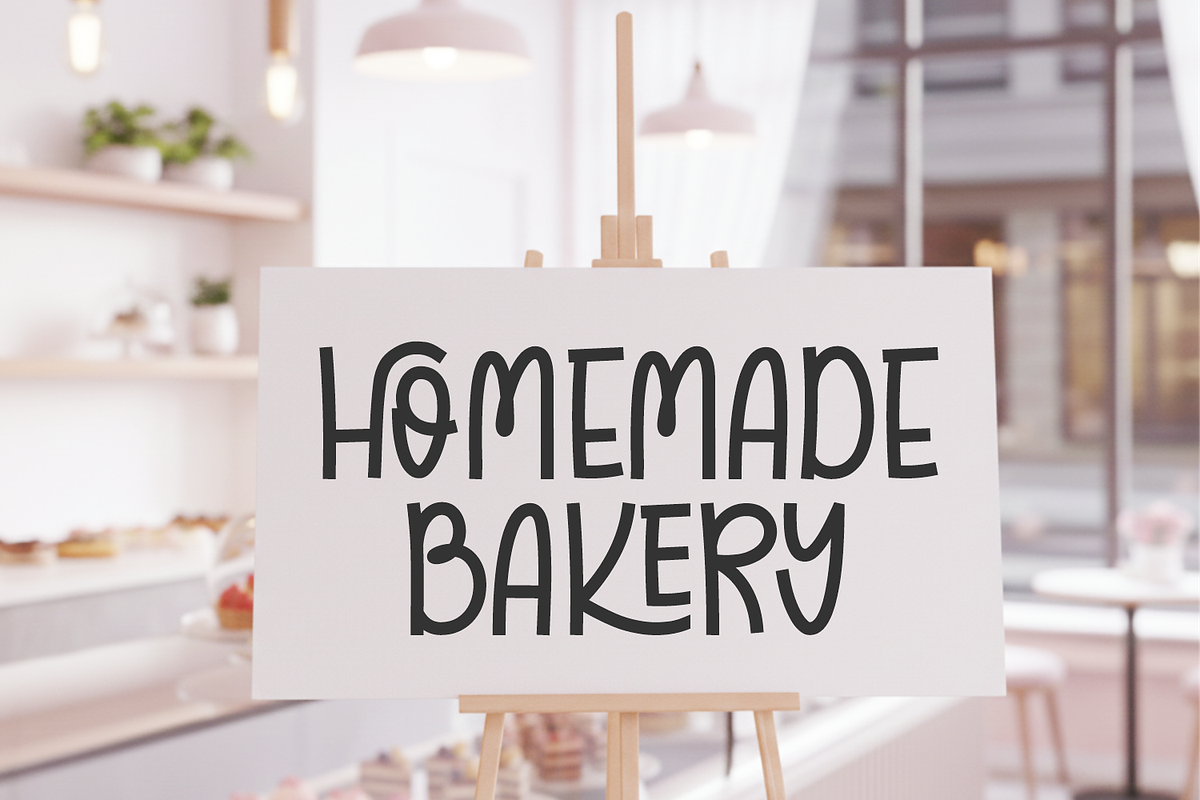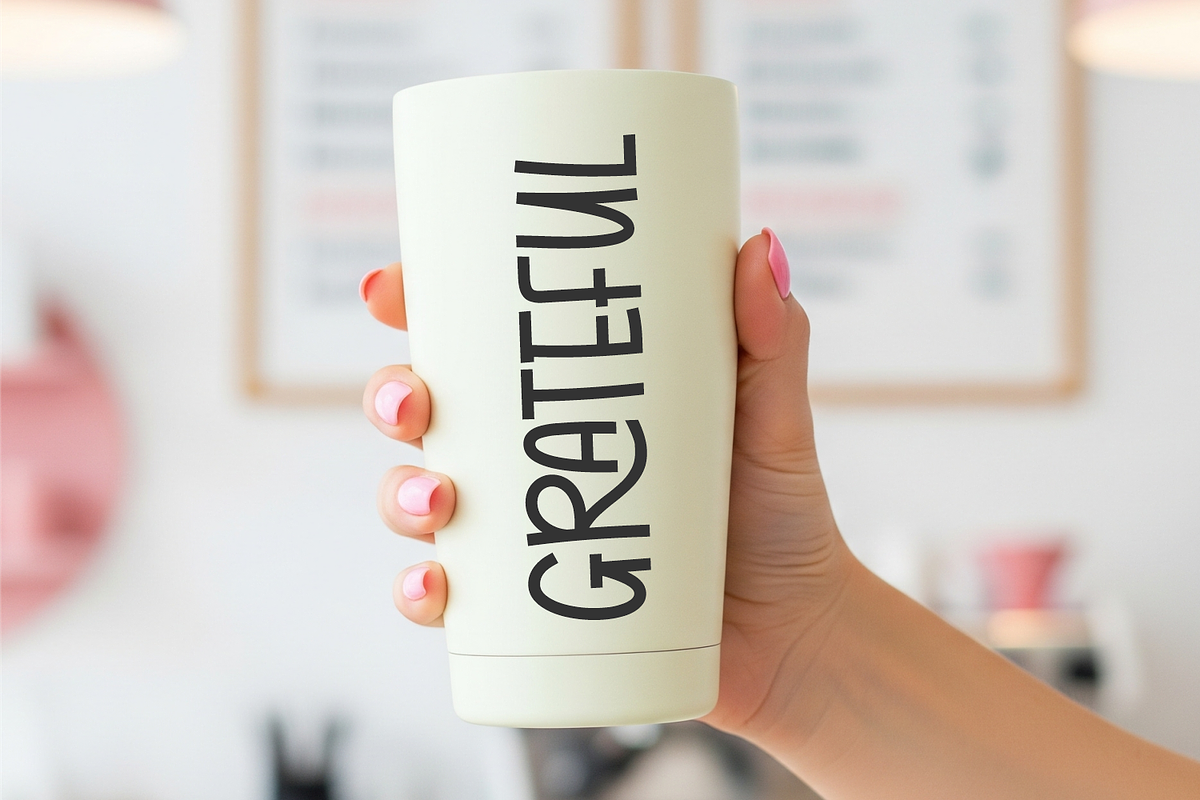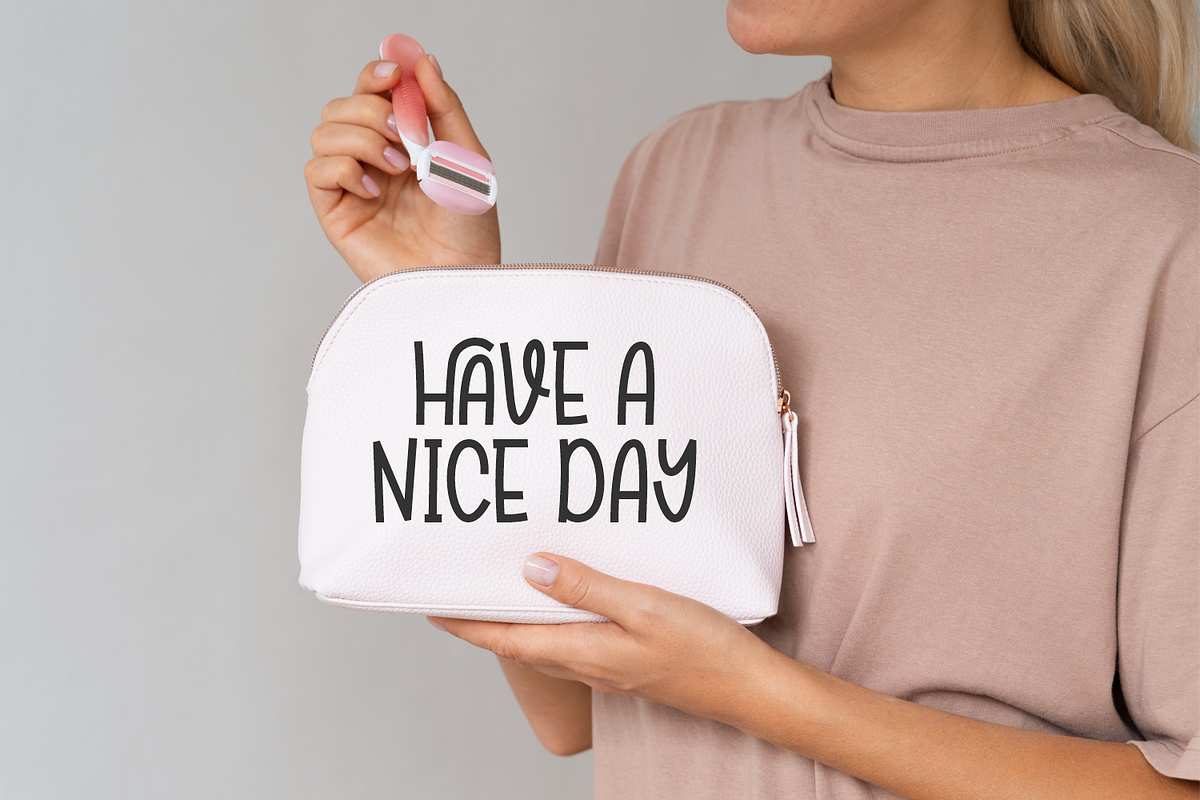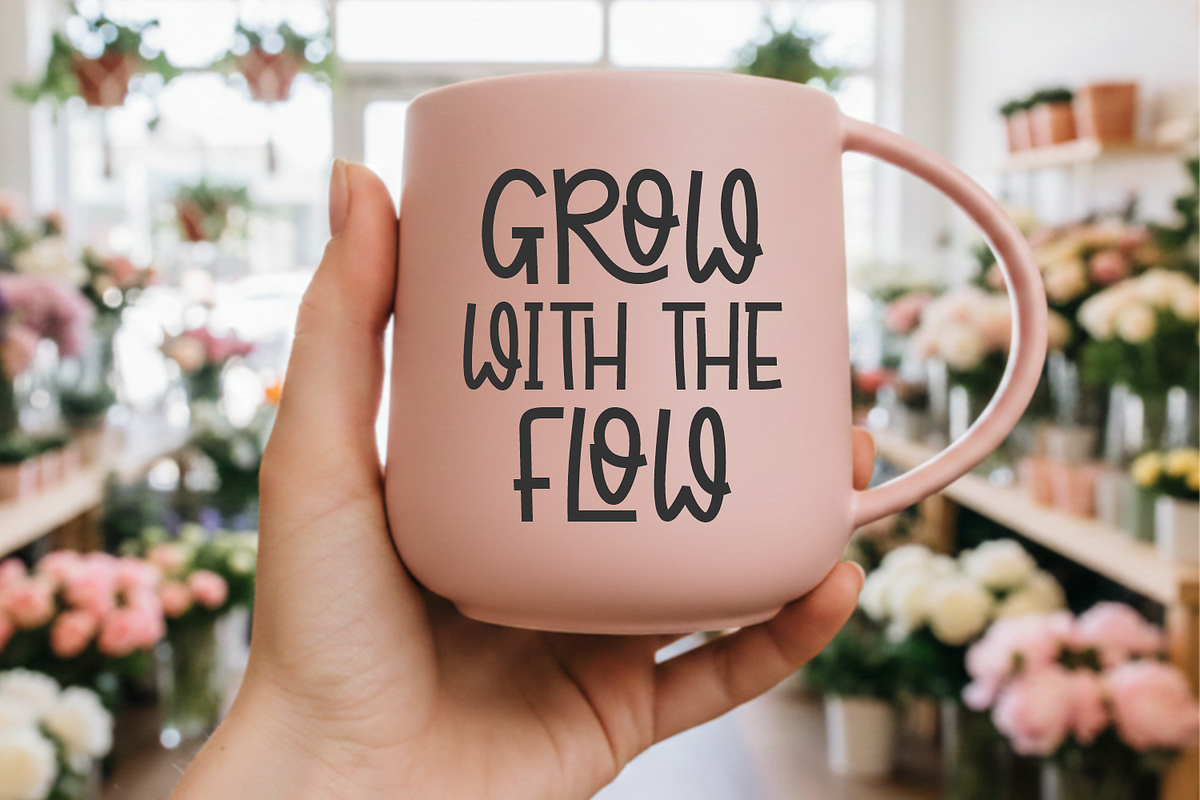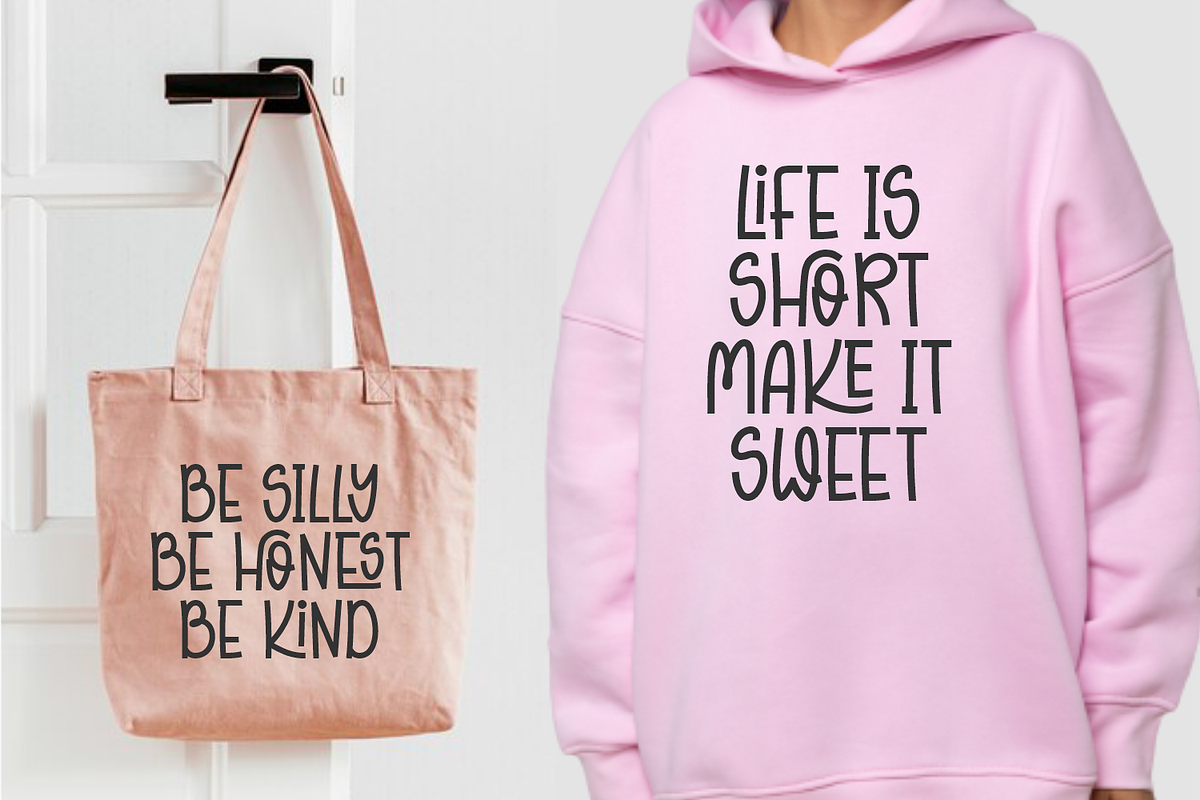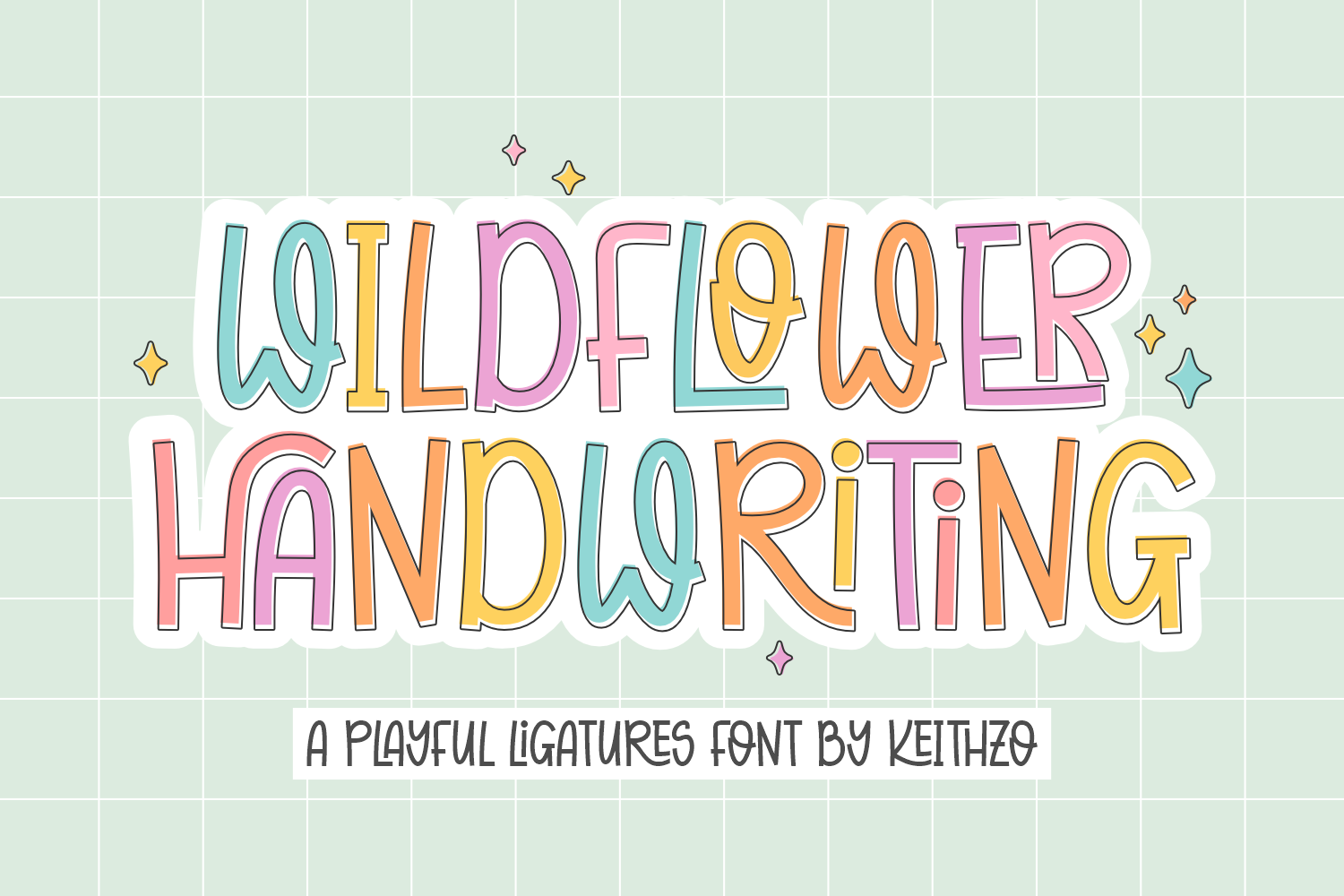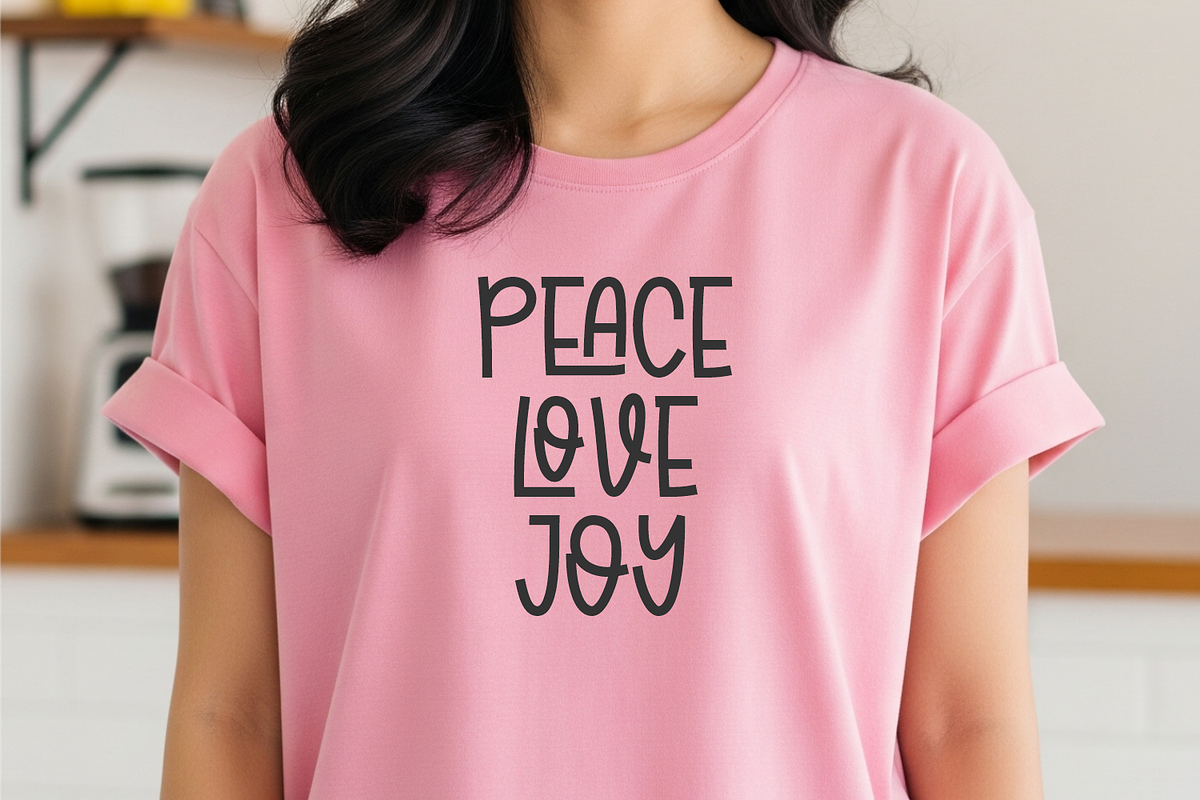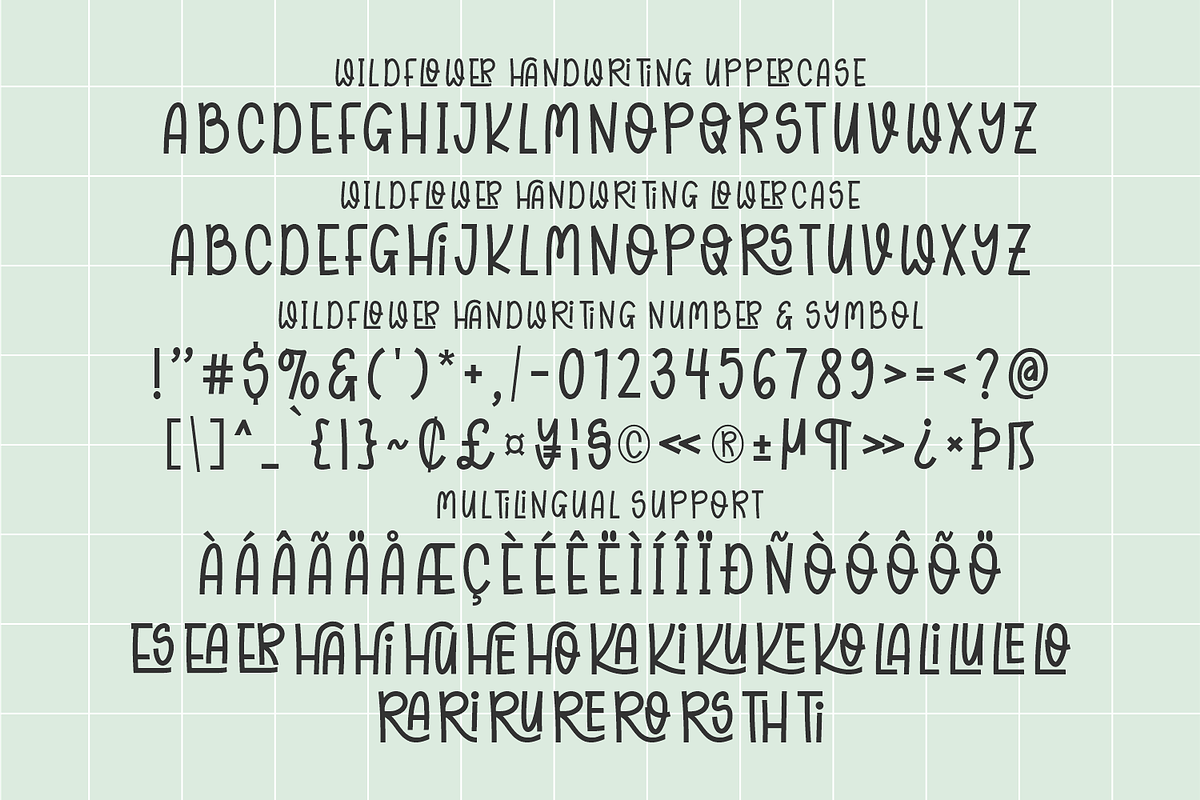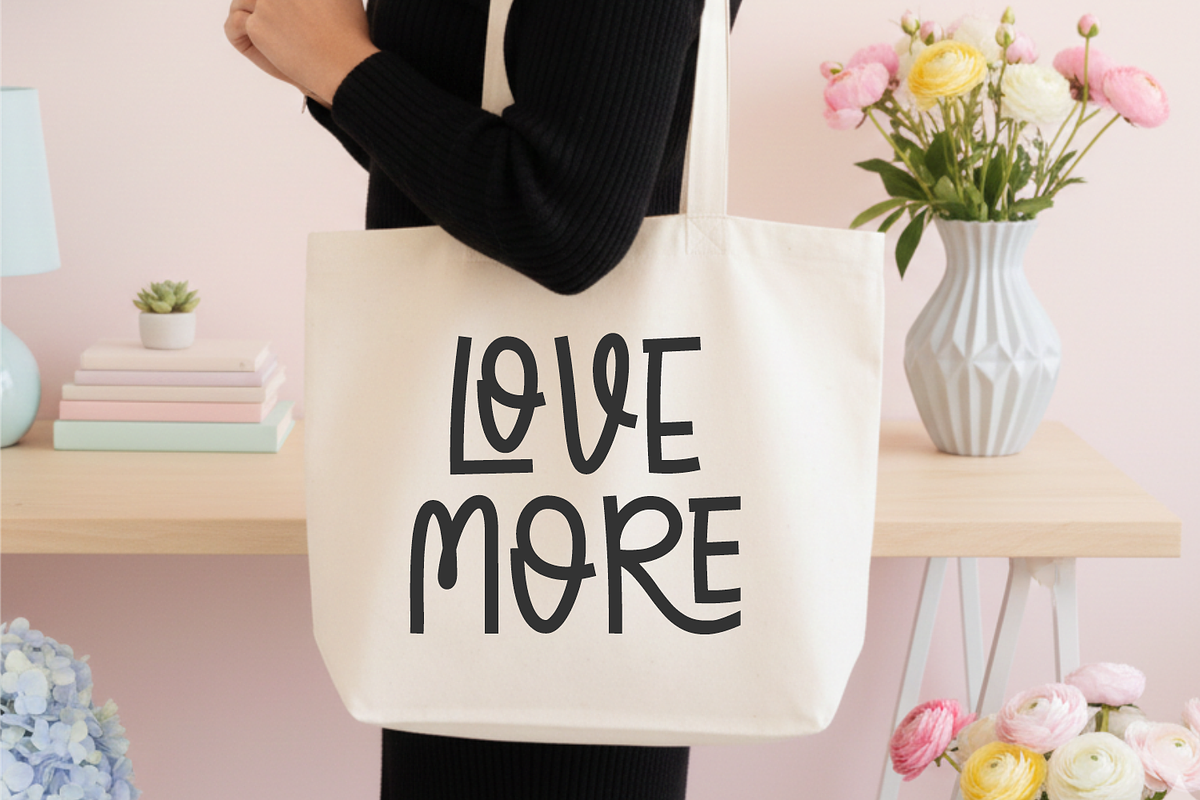
Wildflower Handwriting Font
Bring your designs to life with Wildflower Handwriting, a charmingly organic handwritten font that captures the free spirited beauty of nature. this playful handwritten typeface stands out with its unique flow and artistic personality, making it a must-have for any creative looking for an authentic hand-drawn font.
The true magic of Wildflower Handwriting lies in its stunning decorative ligatures. This font features a wide array of playful ligatures that allow letters to connect naturally and beautifully, giving your text a custom, hand lettered look without the extra effort. It’s a handwritten typeface designed to look as if it was blooming right off the page.